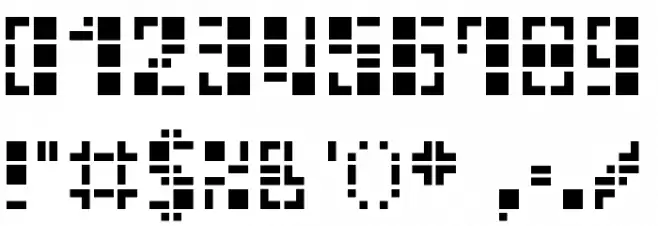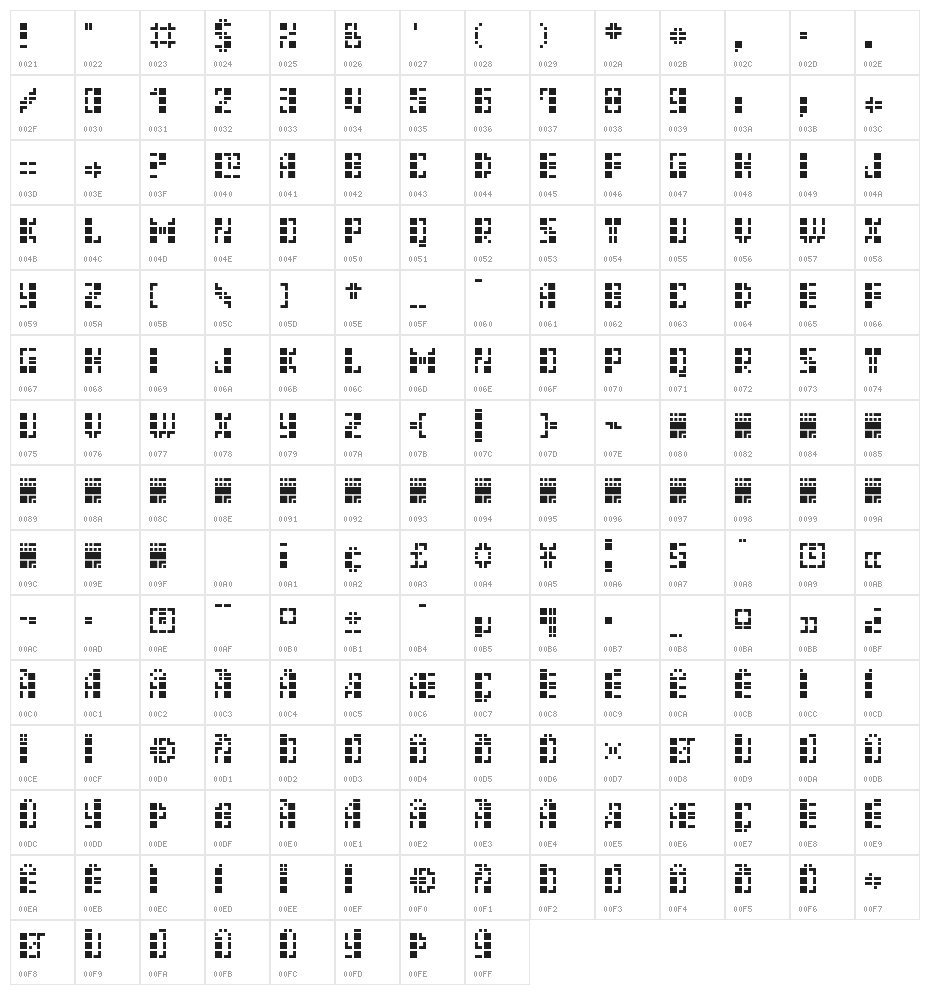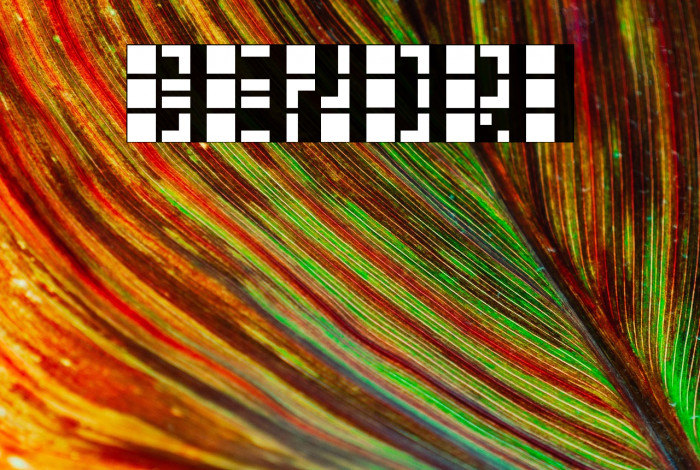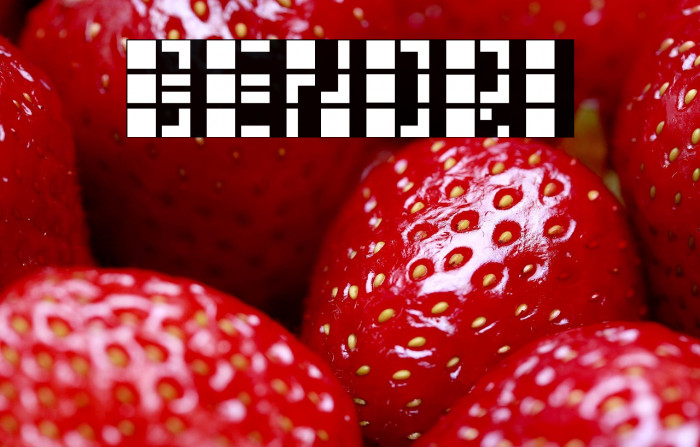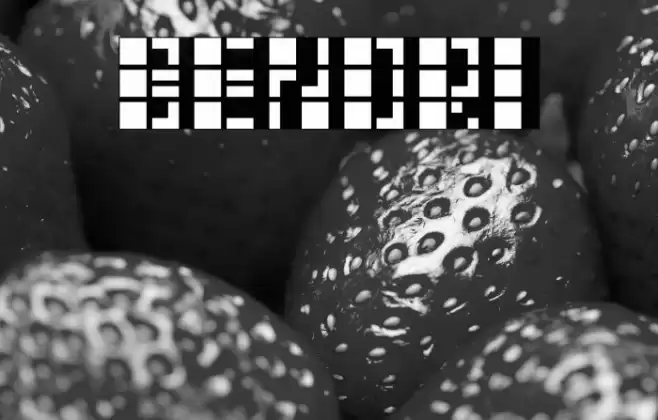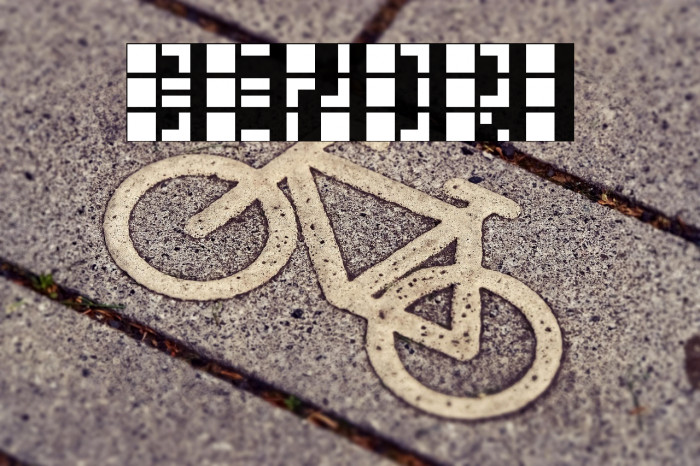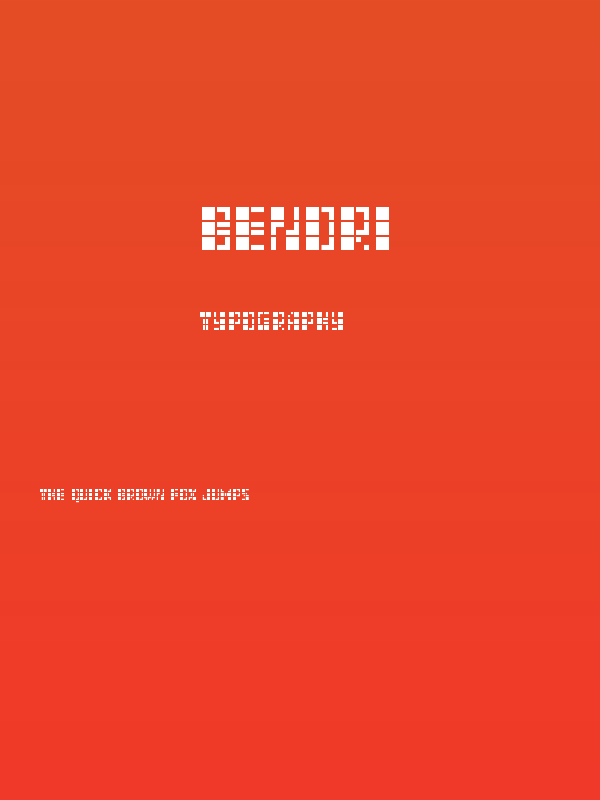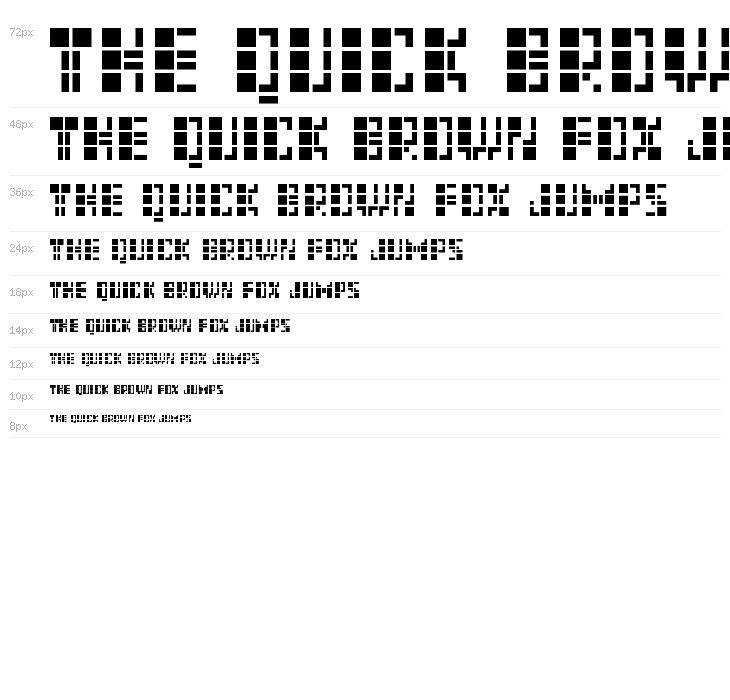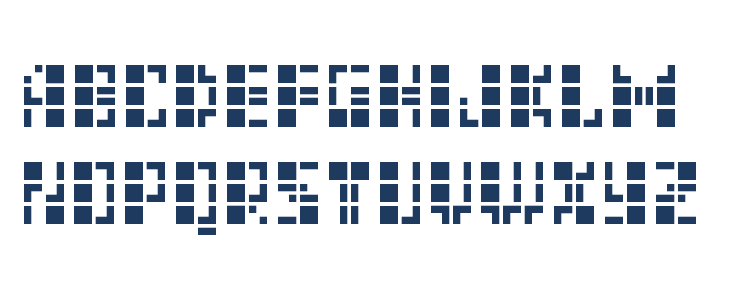
Benori Font
Benori Description
This font features a unique, pixelated design that gives it a digital, retro appearance. Each character is constructed from a grid of squares, creating a blocky and geometric aesthetic. The uppercase and lowercase letters maintain a consistent style, with clear differentiation between each character. Numbers and special characters follow the same pixelated pattern, ensuring uniformity across the font. The bold, high-contrast strokes make it highly legible, even at smaller sizes. This font is ideal for projects that require a digital or vintage gaming feel.